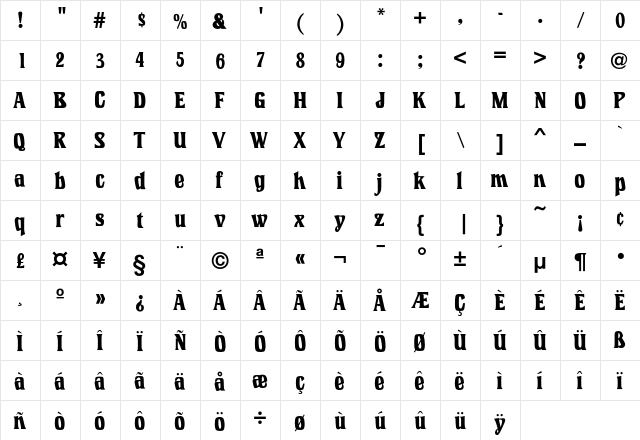
Introspect BoldCondensed Font Preview
Introspect BoldCondensed
Design Context for Introspect Typeface
Introspect is a composed and adaptable typeface that performs quietly and consistently across a wide range of design contexts. Its bold stroke weight gives it real presence on the page. Its narrow stance lets it pack a punch even in space-constrained designs.